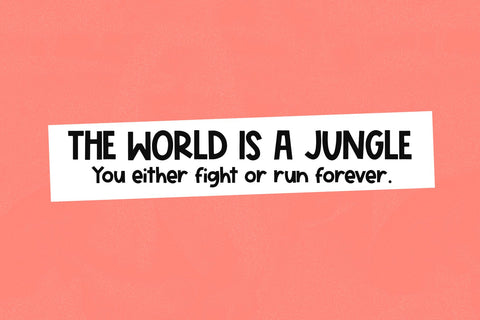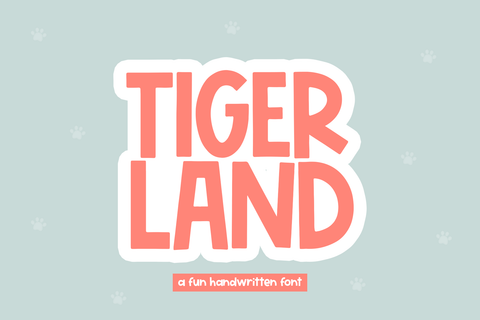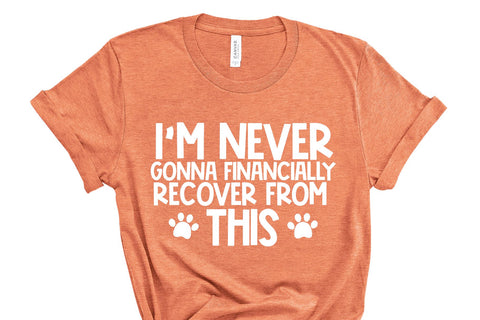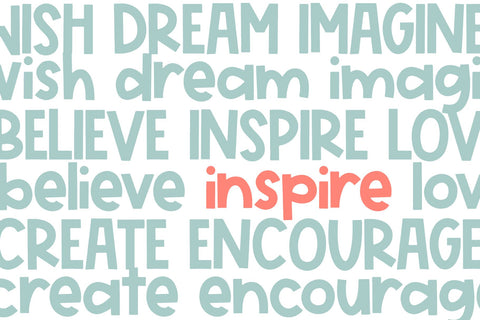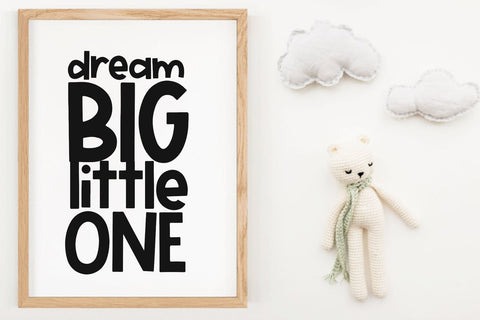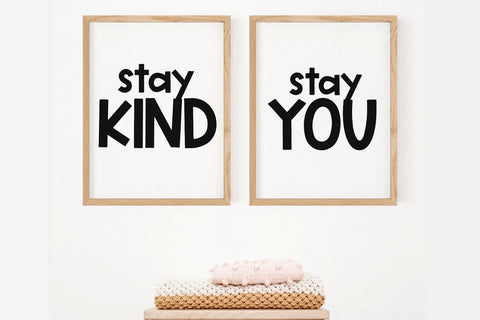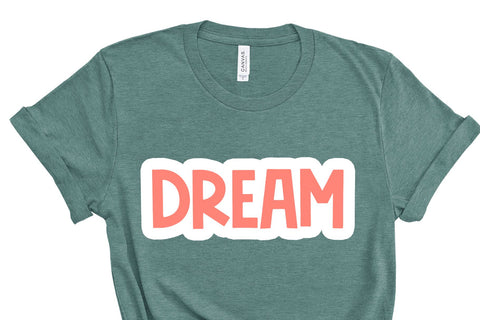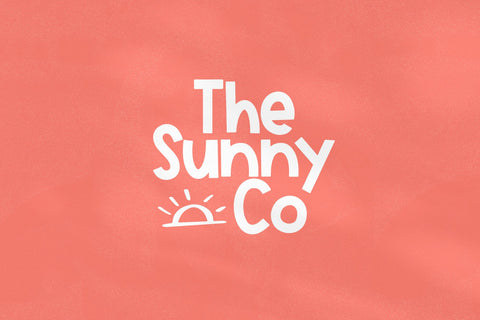
Tigerland - A Handwritten Display Font
Tigerland is a fun handwritten font!
This font is perfect for quotes, shirt designs, websites, branding, children's designs, svg designs, blogs, logos, invitations and more!
Most accent characters included.